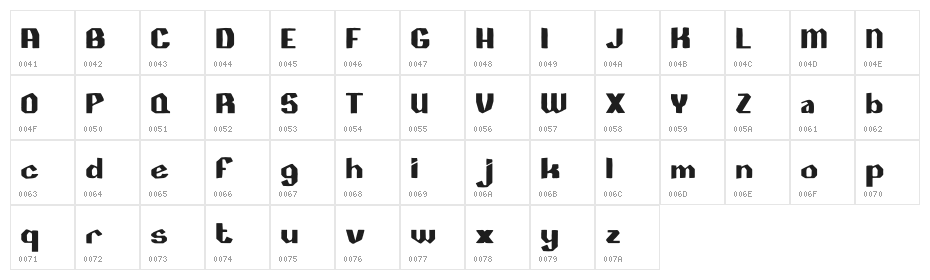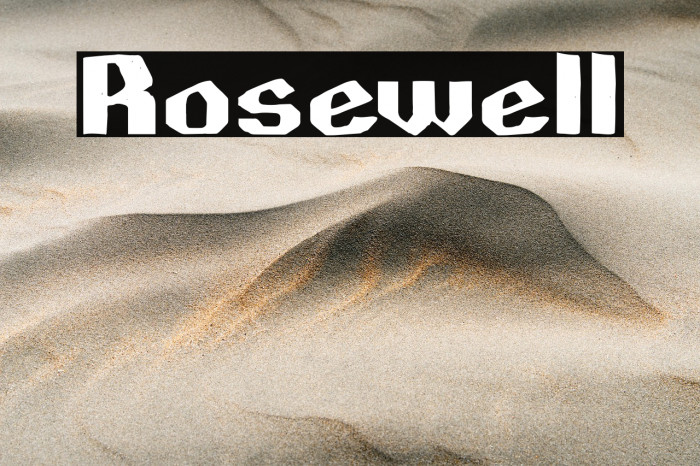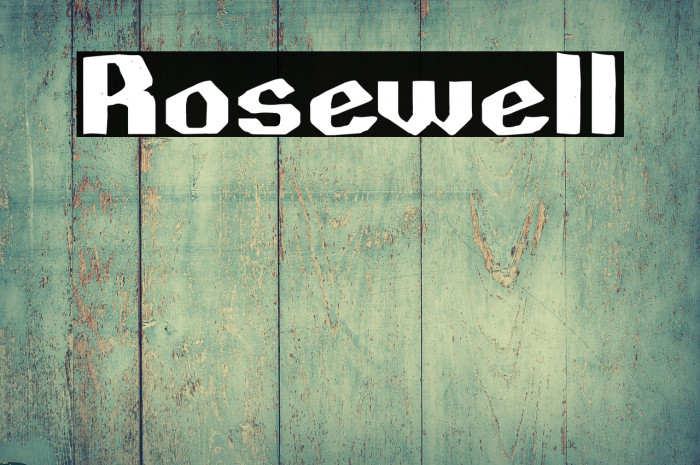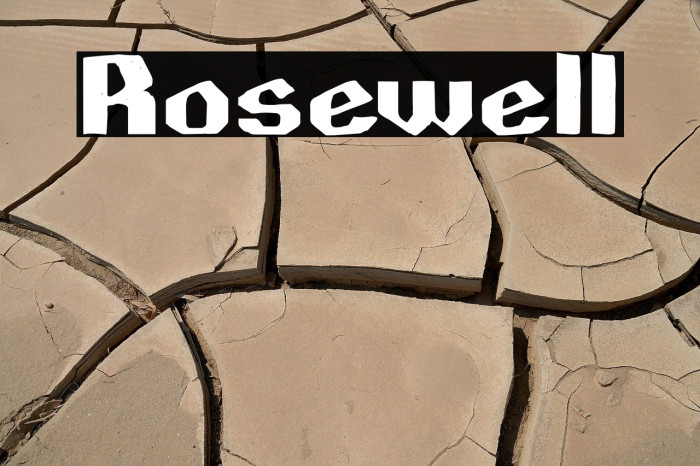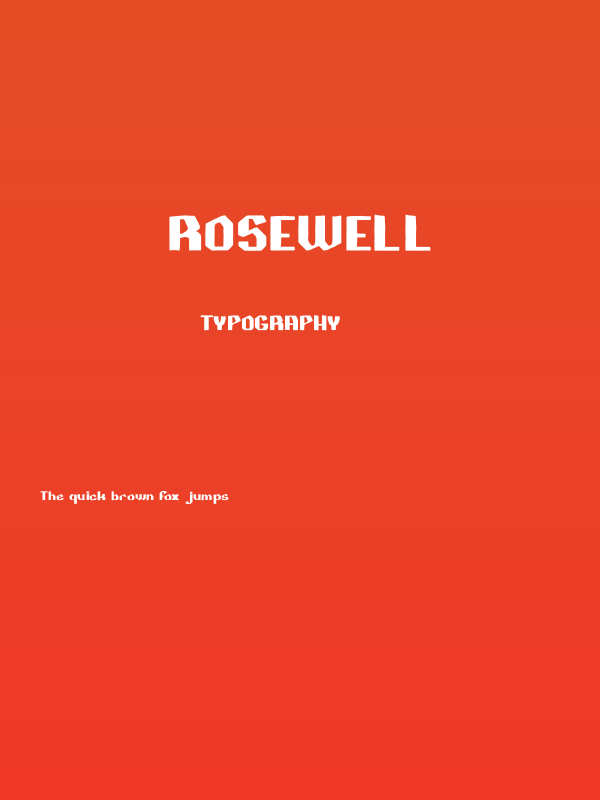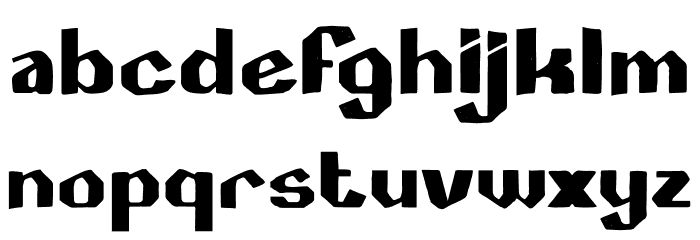
Rosewell Font
Rosewell Description
This font features a bold and striking design with a distinctly angular and geometric style. The characters are crafted with sharp edges and a blocky appearance, giving it a strong visual impact. The uppercase and lowercase letters maintain a consistent width, contributing to a uniform look. The font's unique style is reminiscent of futuristic or sci-fi themes, making it ideal for projects that require a modern and edgy aesthetic. The boldness of the characters ensures high readability, while the angular design adds a touch of uniqueness and creativity.
| Proposed Projects | Ideal for sci-fi themed posters, modern branding, video game titles, and edgy graphic designs. |